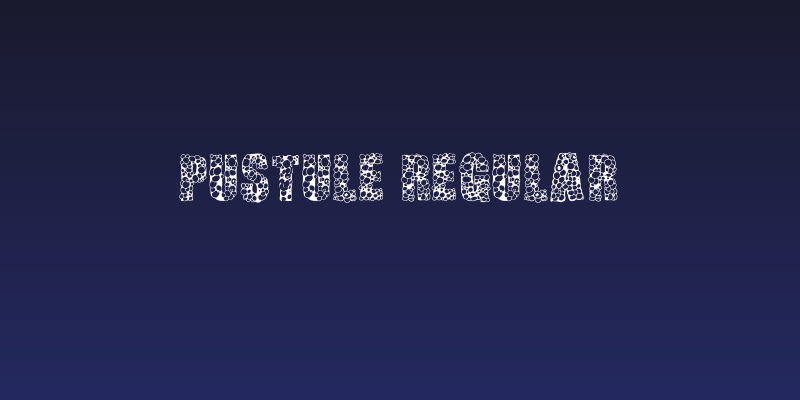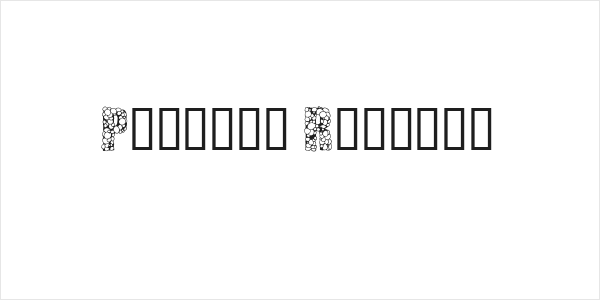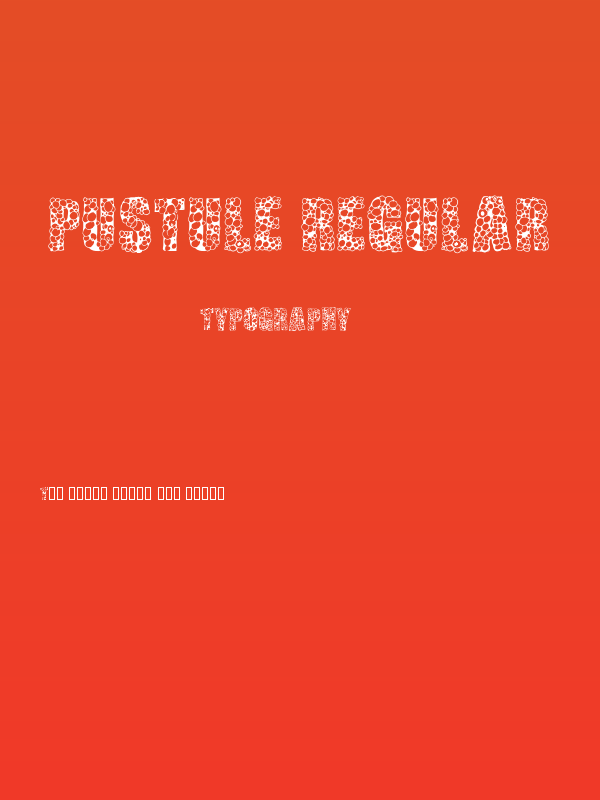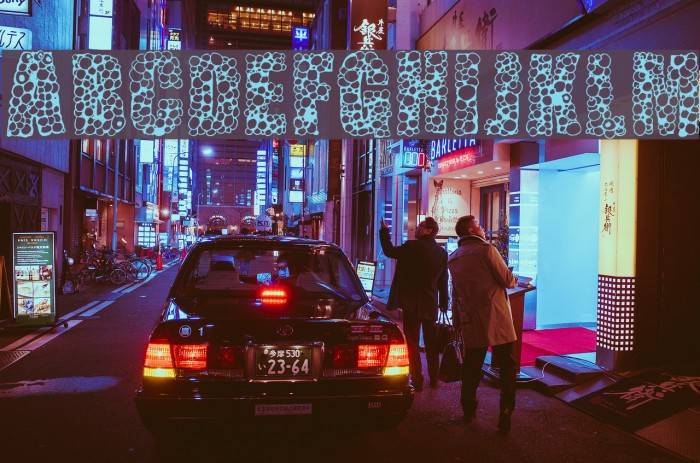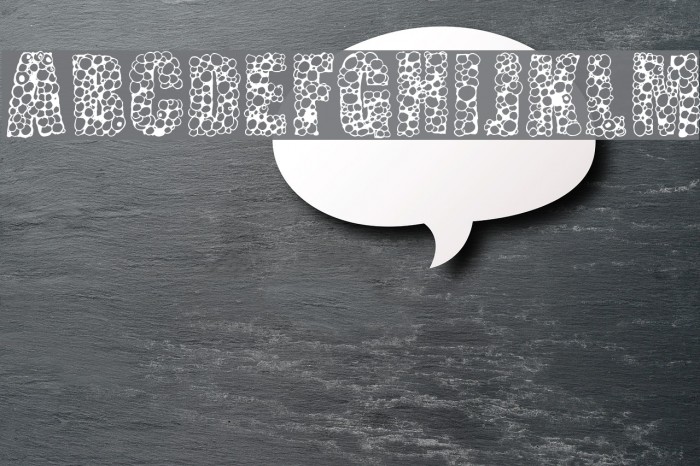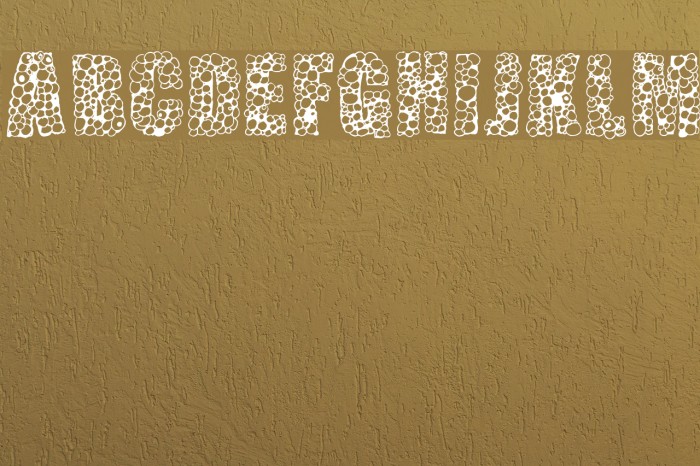
Pustule Regular Font
Pustule Regular Description
This font features a unique and playful design, characterized by a pattern of circular pustule-like shapes that fill each letter. The uppercase letters are bold and eye-catching, making them ideal for decorative purposes. The texture adds a tactile dimension, giving the font a whimsical and organic feel. The design is consistent across all characters, ensuring a cohesive look. Its distinct style makes it stand out, perfect for projects that require a fun and unconventional typeface.
| Proposed Projects | Ideal for children's book covers, party invitations, creative posters, and branding for playful or quirky products. |